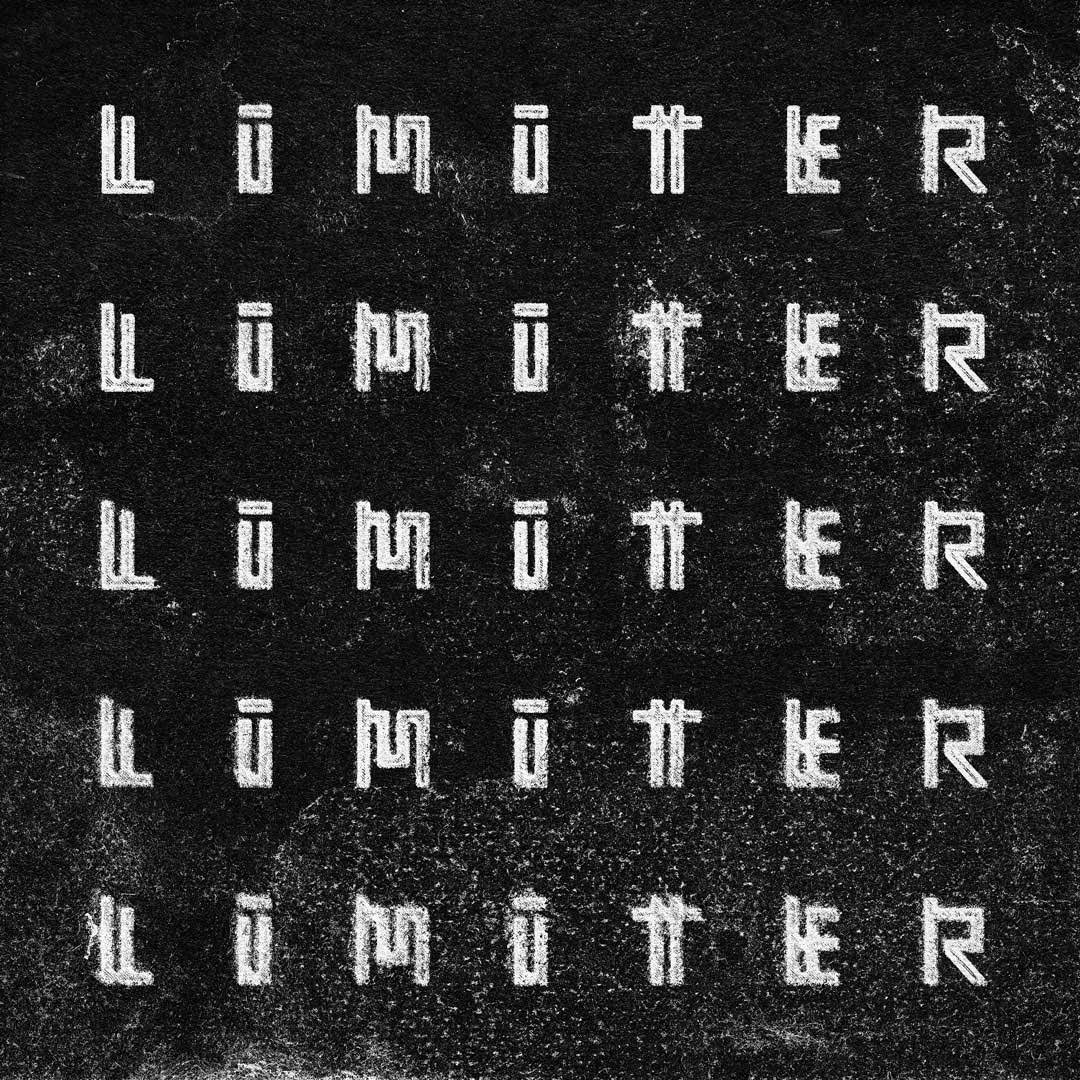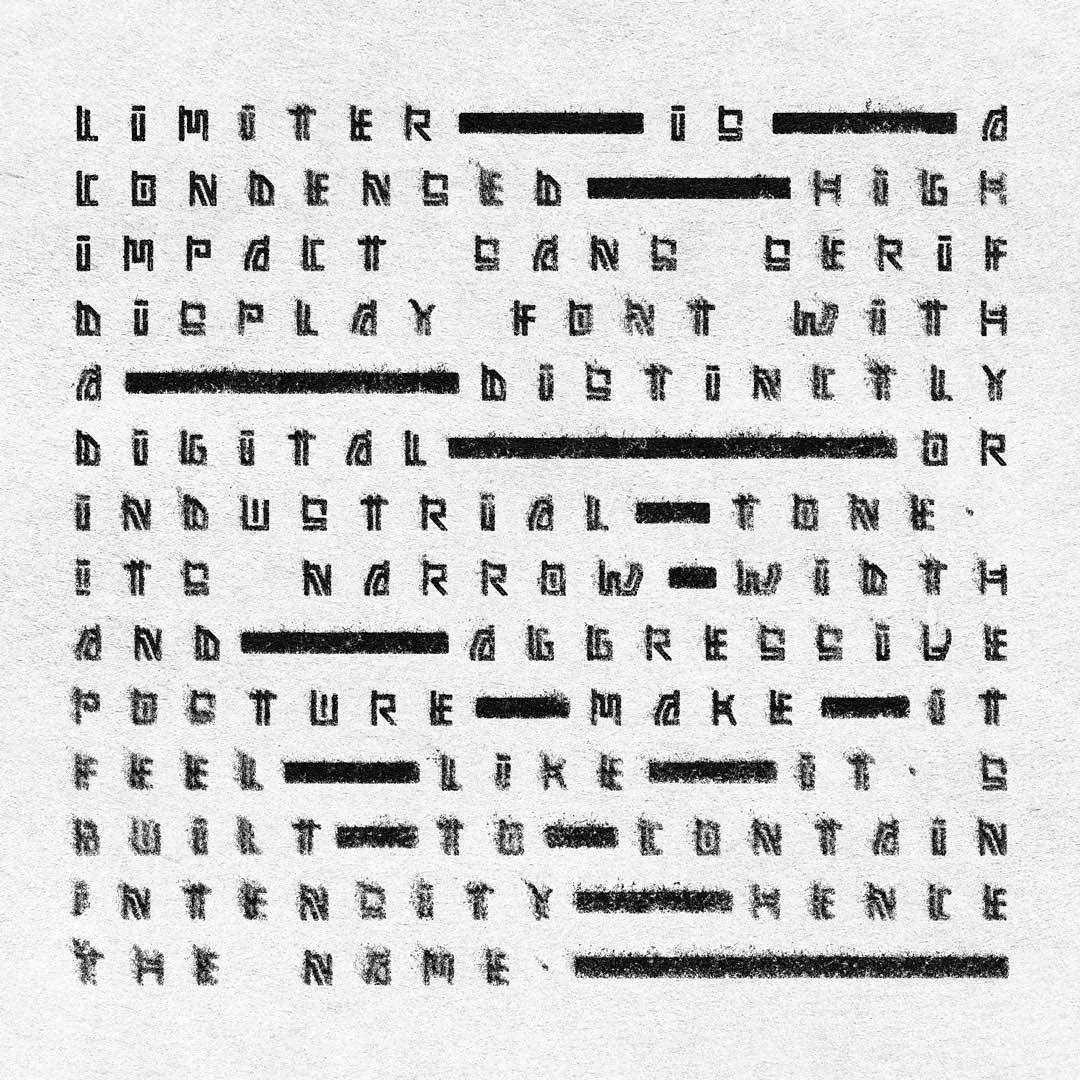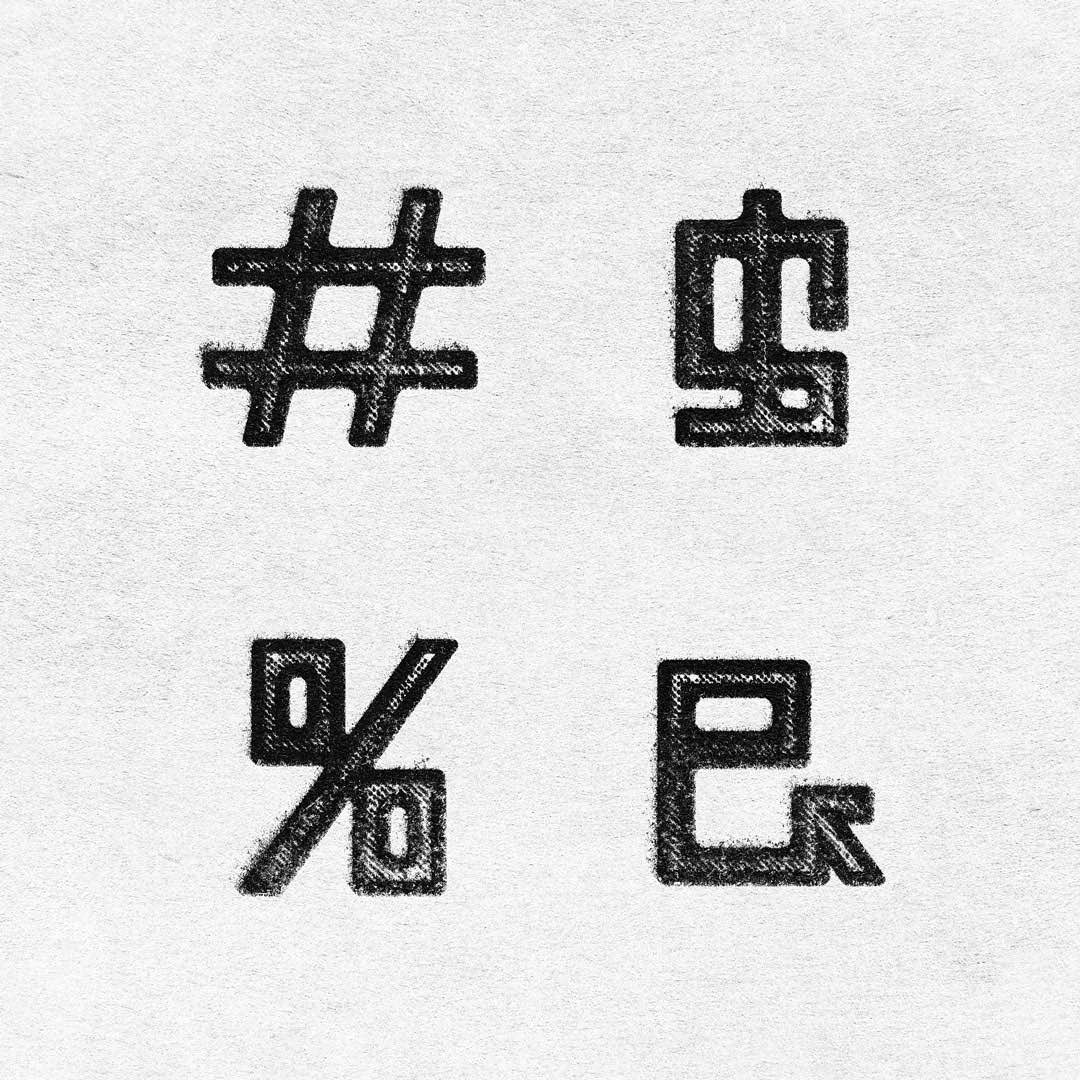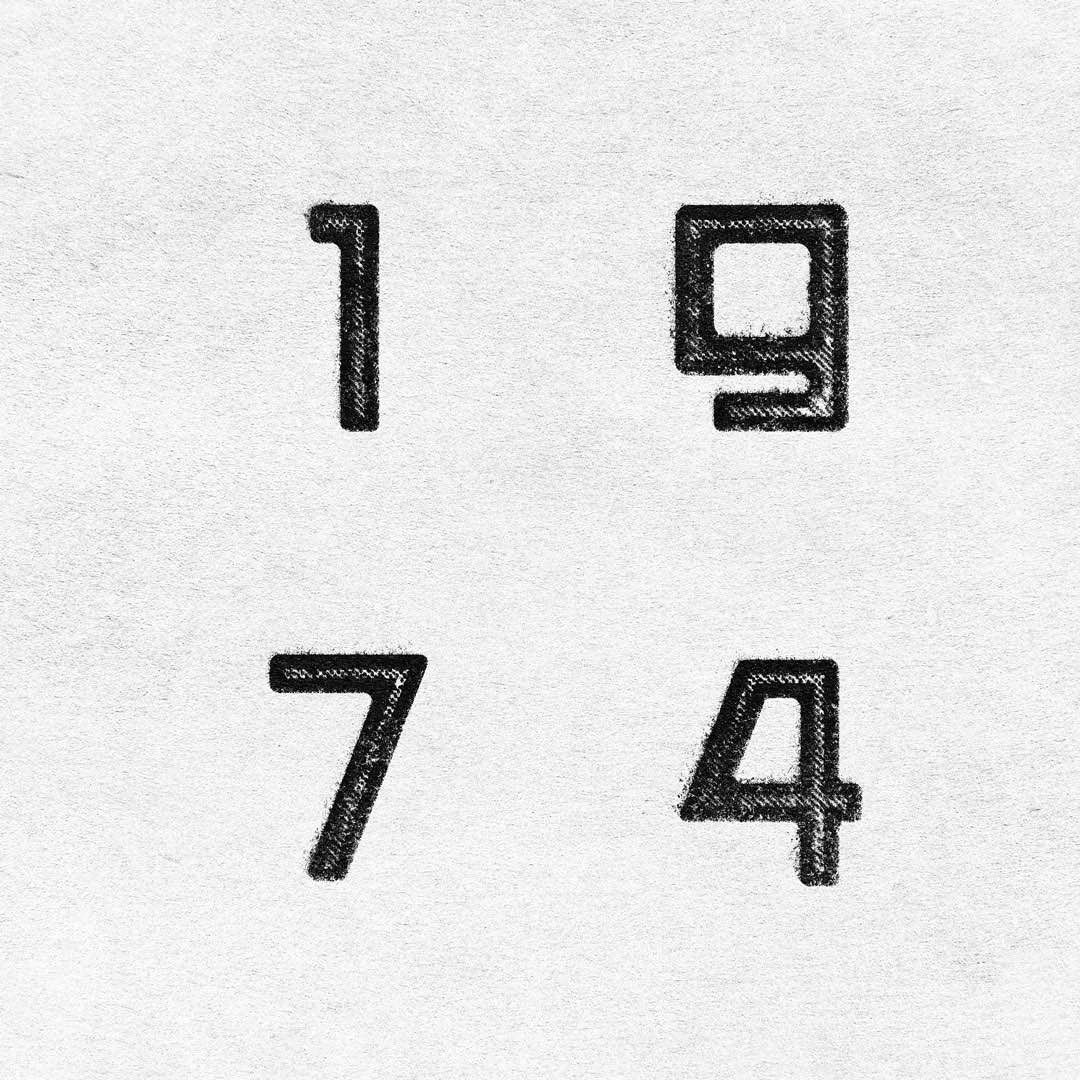
Limiter is tight, tall, and built for impact. This condensed sans-serif display font delivers all-caps energy with industrial sharpness, like a pressure gauge about to blow. With its no-nonsense geometry and high-density rhythm, Limiter thrives in aggressive branding, digital overlays, and layouts that demand maximum power in minimum space.